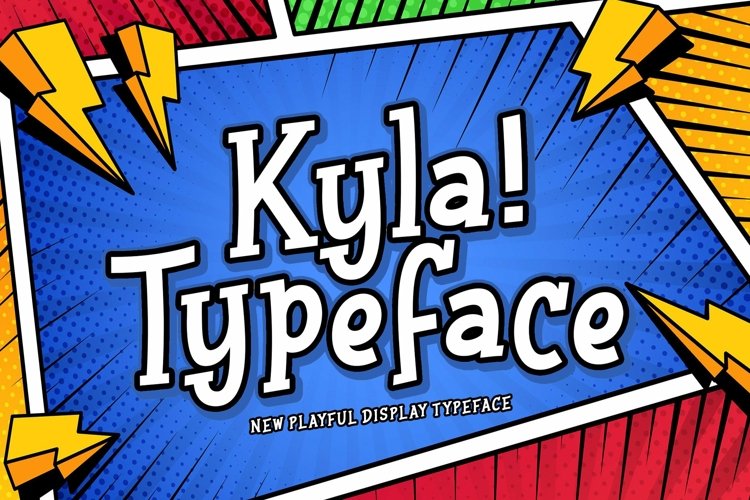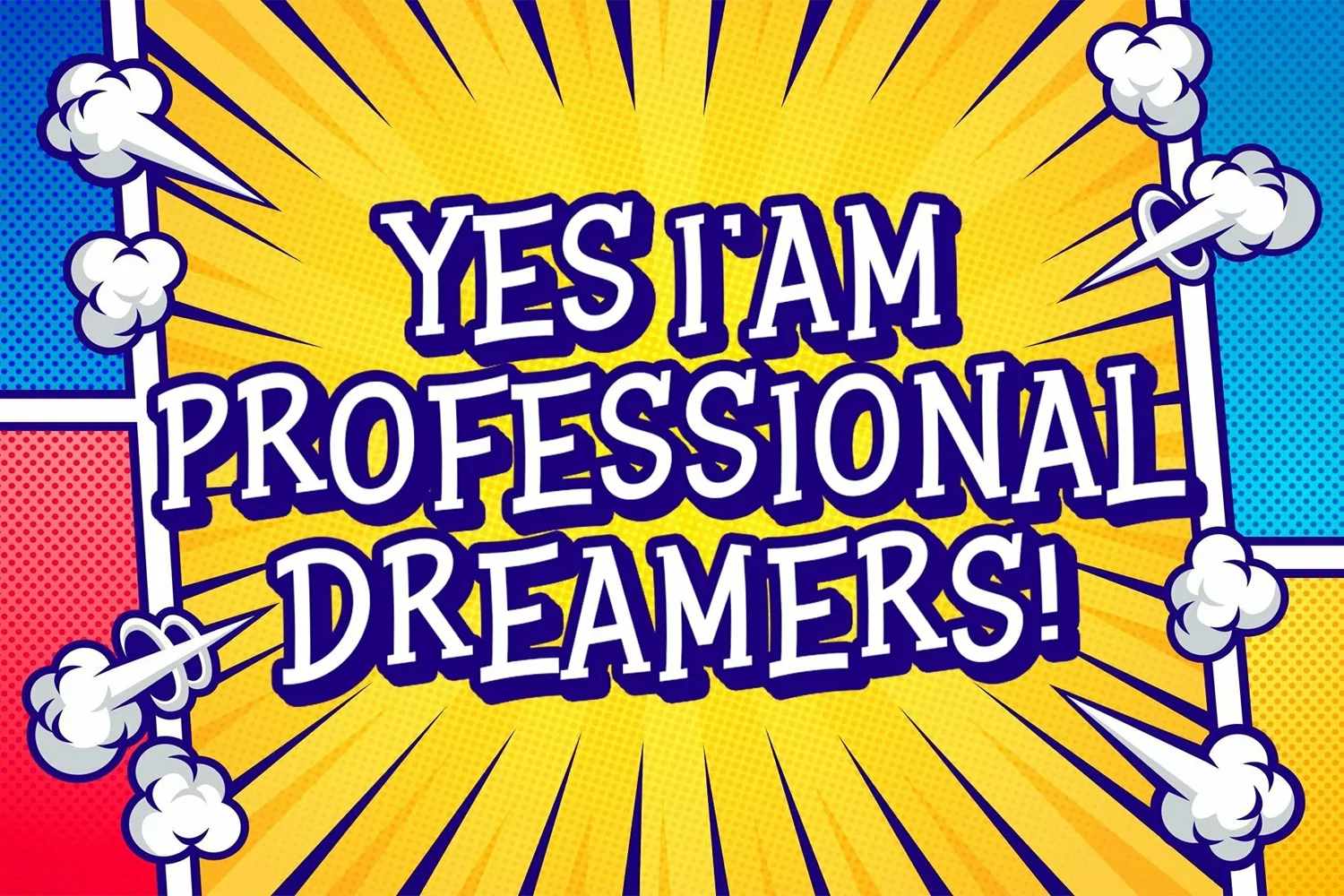
Kyla is a new playful display typeface. Perfect for display, poster, quotes, film, craft needs, book cover, business card, packaging, merchandise, branding, logo, logotype, header, title, and many more.